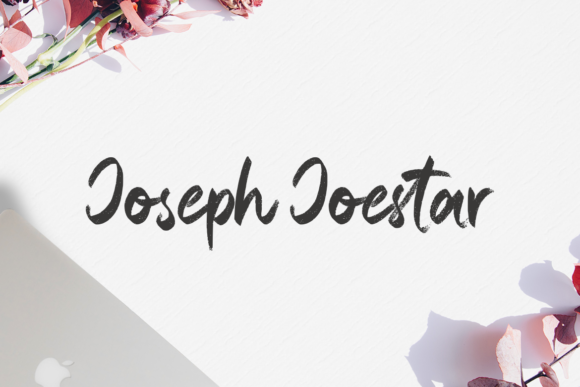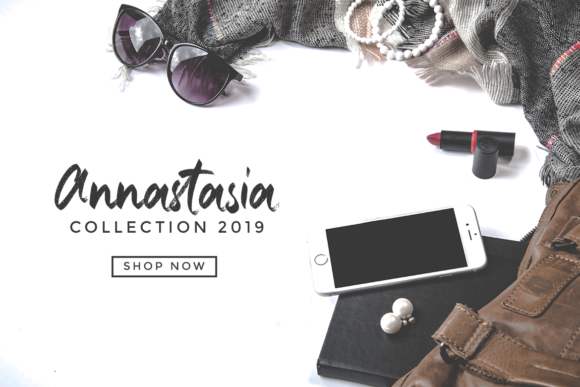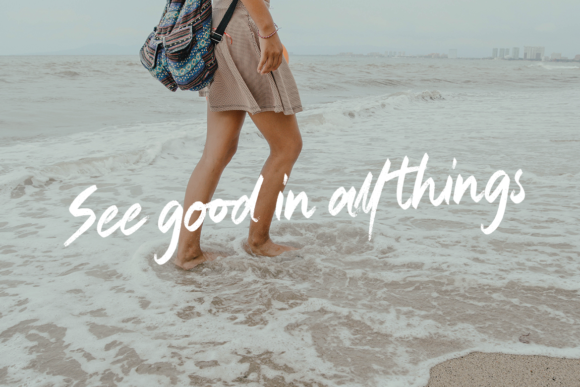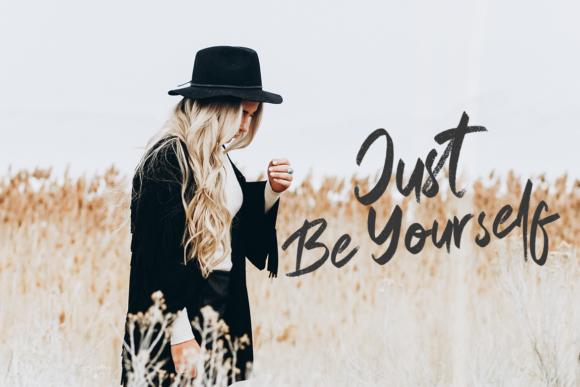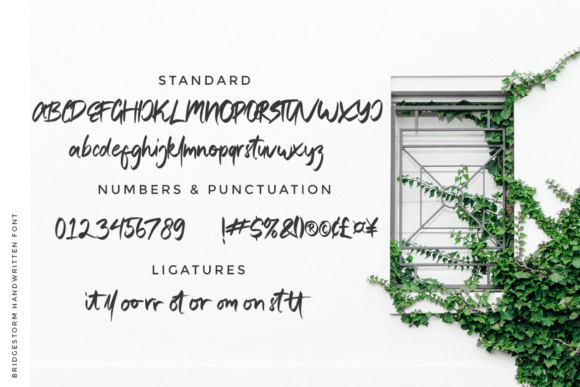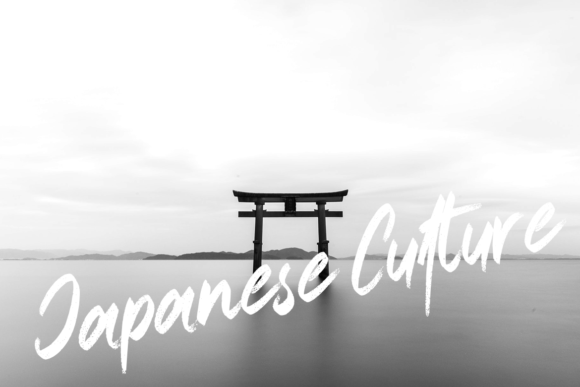
Bridgestorm Font: A Charming Handwritten Font for Crafting Projects
Bridgestorm is a unique and romantic handwritten font that has been making waves in the design and crafting community. With its charming style, this font is perfect for adding a friendly feel to any crafting project. Whether you’re a designer, crafter, or DIY enthusiast, Bridgestorm Font is a must-have in your font collection.
What Makes Bridgestorm Font Special?
Bridgestorm Font is a one-of-a-kind handwritten font that exudes a sense of warmth and personality. Its unique charm lies in its flowing, cursive script, which gives it a romantic and whimsical feel. The font’s irregularities and imperfections add to its handmade charm, making it perfect for projects that require a personal touch.
Features of Bridgestorm Font
• Unique and Romantic Style: Bridgestorm Font boasts a distinctive and romantic style that sets it apart from other fonts.
• Handwritten Charm: The font’s handwritten nature gives it a warm and friendly feel, perfect for crafting projects.
• Charming Irregularities: The font’s irregularities and imperfections add to its handmade charm, making it perfect for projects that require a personal touch.
• Easy to Read: Despite its unique style, Bridgestorm Font is easy to read, making it perfect for use in a variety of crafting projects.
Uses for Bridgestorm Font
Bridgestorm Font is versatile and can be used in a variety of crafting projects, including:
• Card Making: Add a personal touch to your greeting cards with Bridgestorm Font.
• Scrapbooking: Use Bridgestorm Font to add a romantic and whimsical touch to your scrapbook pages.
• Journaling: Add a personal touch to your journal entries with Bridgestorm Font.
• DIY Projects: Use Bridgestorm Font to add a handmade touch to your DIY projects, such as signs, banners, and more.
Tips for Using Bridgestorm Font
Here are some tips for getting the most out of Bridgestorm Font:
• Use it with Other Fonts: Pair Bridgestorm Font with other fonts to create a unique and interesting contrast.
• Experiment with Colors: Try using Bridgestorm Font in different colors to add a pop of personality to your project.
Bridgestorm Font is a unique and romantic handwritten font that’s perfect for adding a friendly feel to any crafting project. With its charming style and handmade charm, it’s a must-have in any designer’s or crafter’s font collection. Whether you’re making cards, scrapbooking, or working on a DIY project, Bridgestorm Font is sure to add a personal touch.